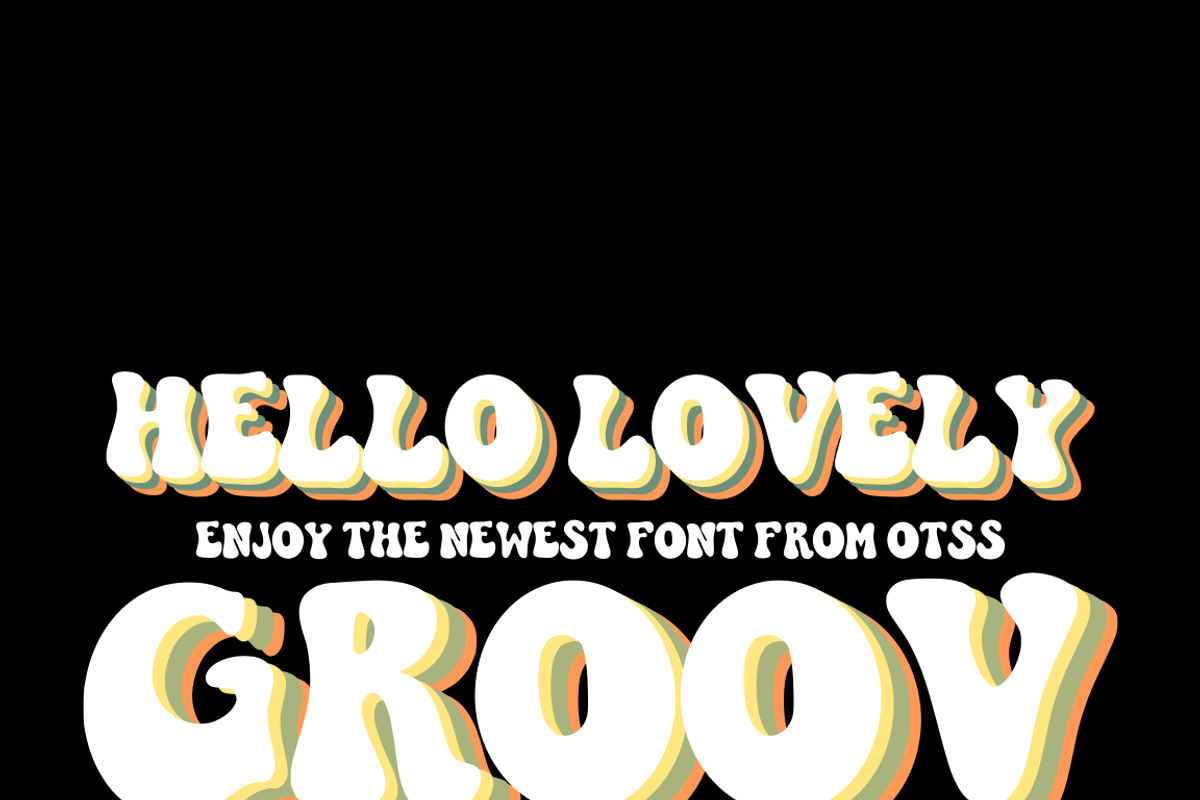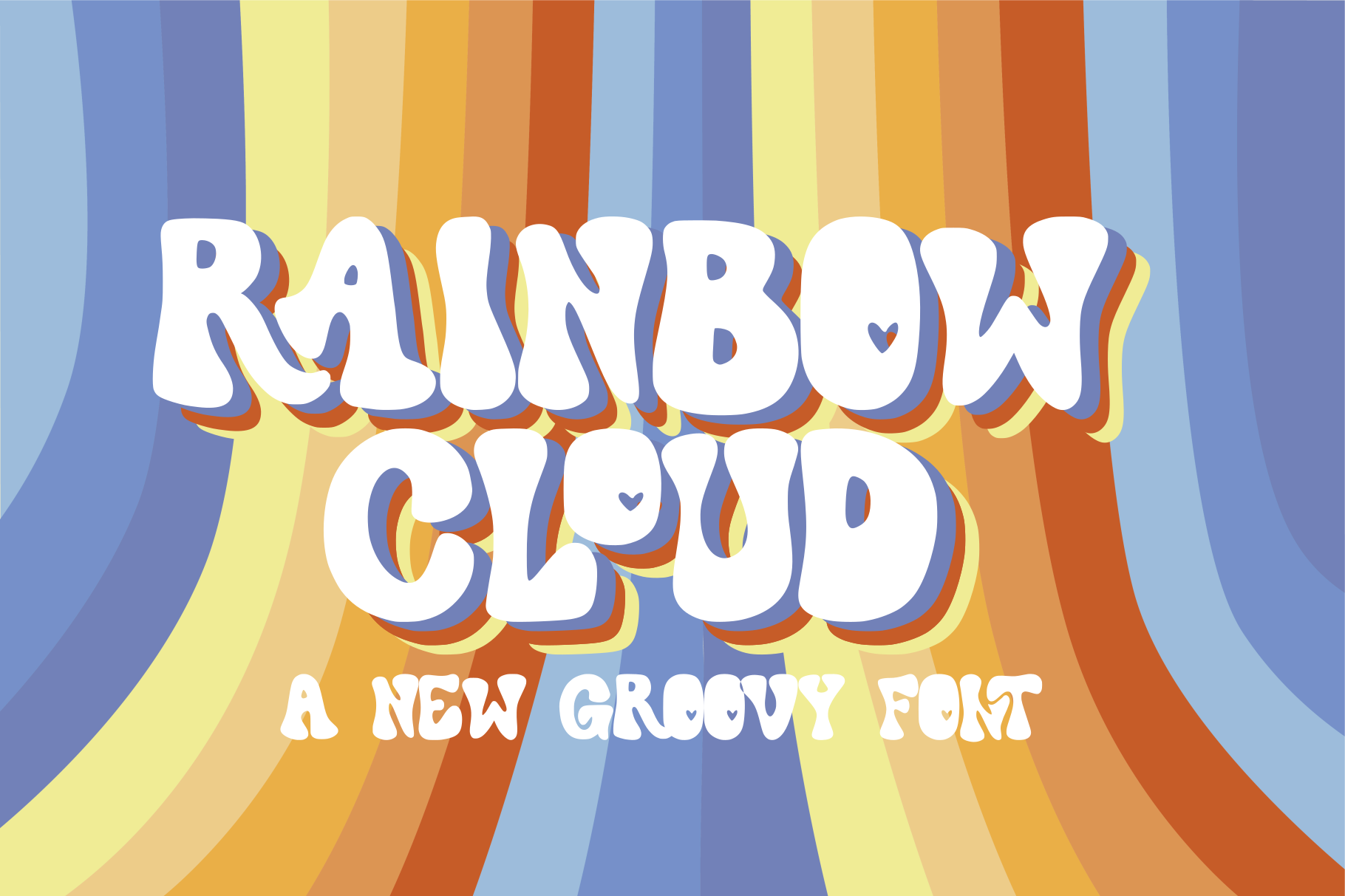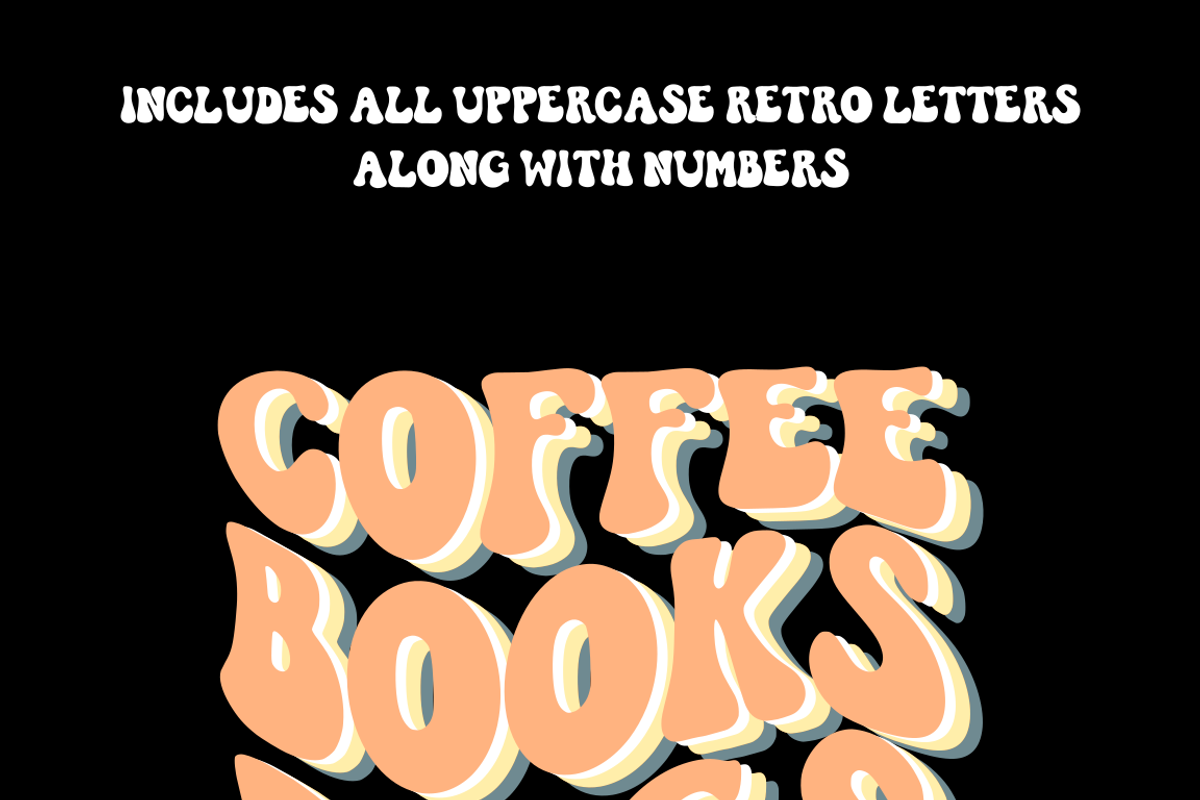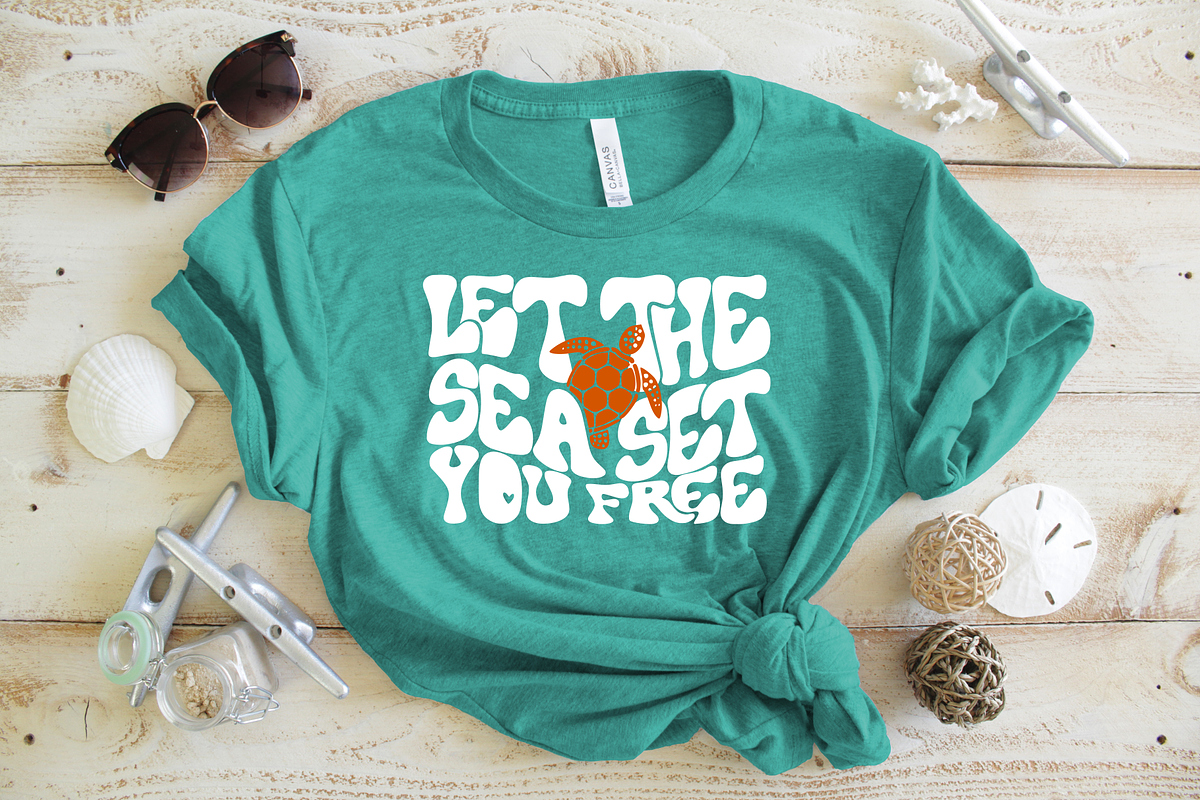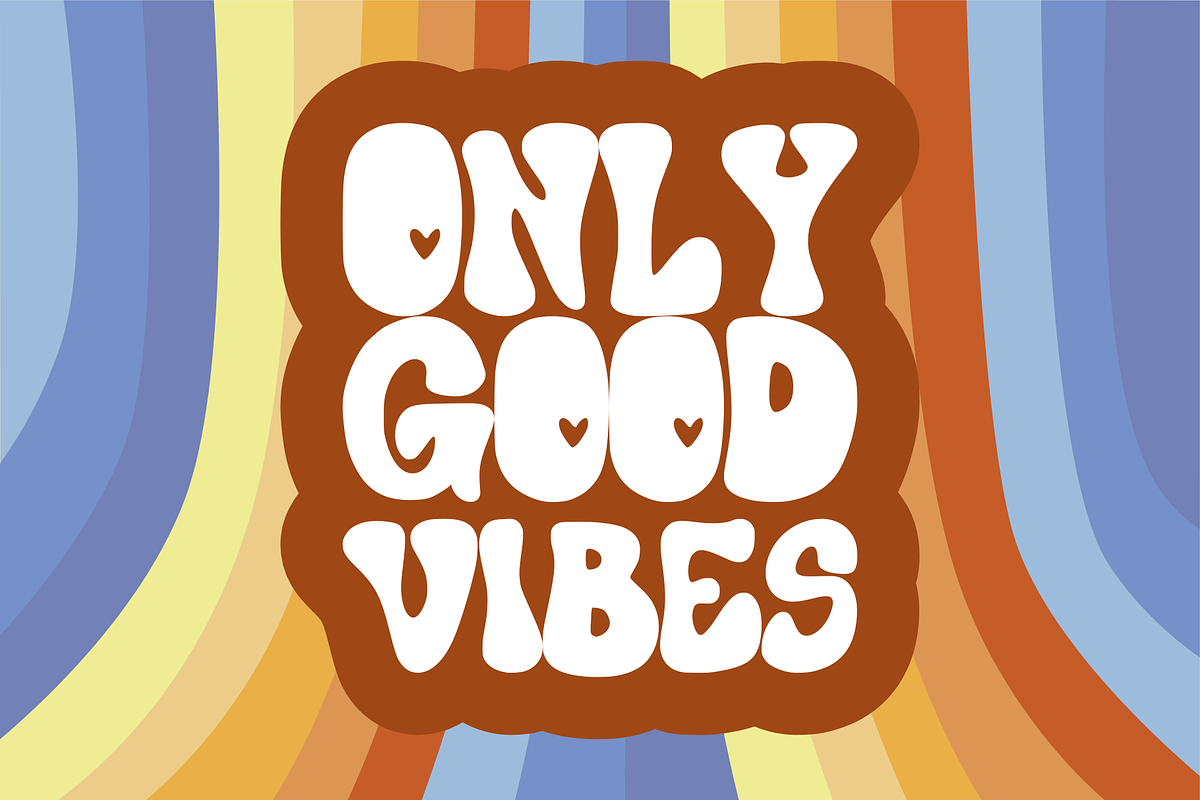
rainbow cloud - a groovy retro font
boy was this one fun to make. includes funky retro styled lettering A-Z a-z Ligatures are in the lowercase format. Includes numbers and minimal punctuation as well.
BONUS all uppercase font "groov" is included in this purchase!